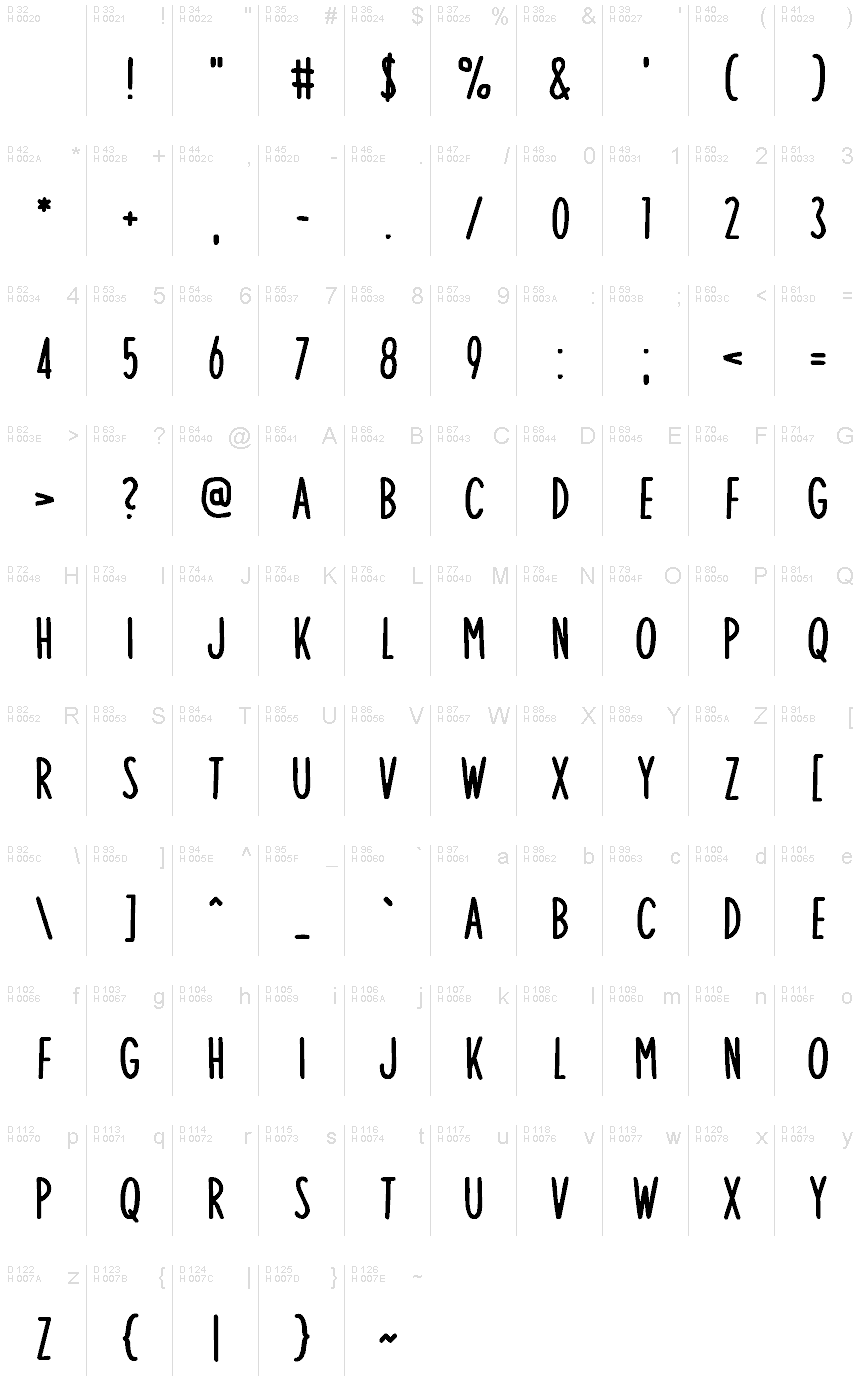
Dangerless Liaisons
Dangerless Liaisons font by Chequered Ink is a condensed handwritten font that combines elegant vintage-inspired elements with a slightly retro aesthetic. Its quirky touch and casual elegance make it stand out, while maintaining an overall pleasant appearance to the viewer.